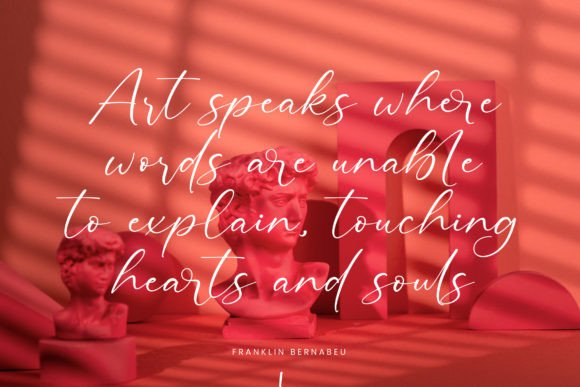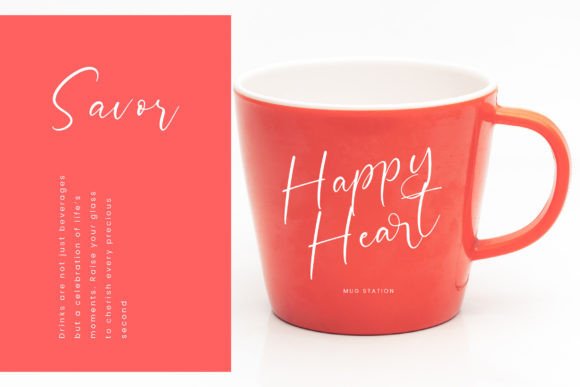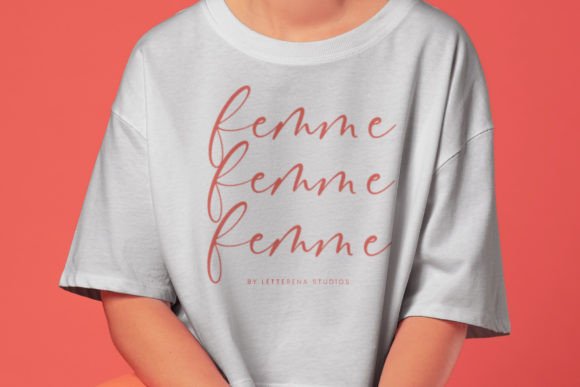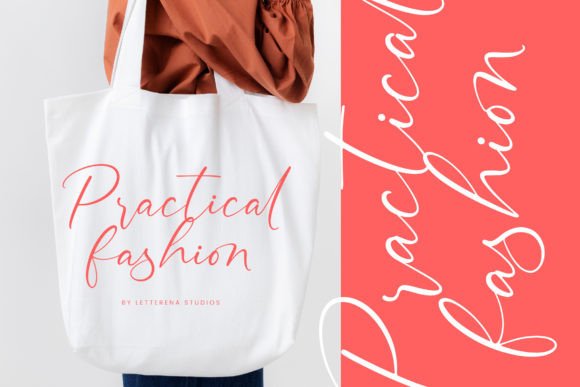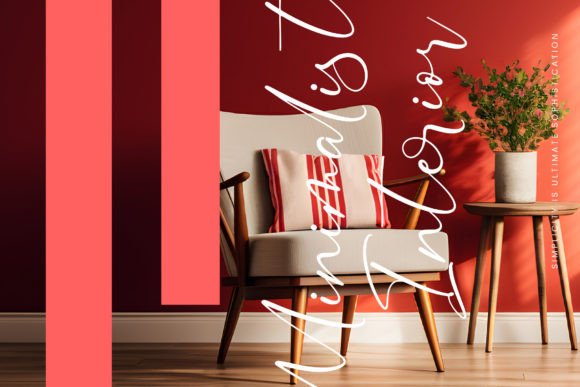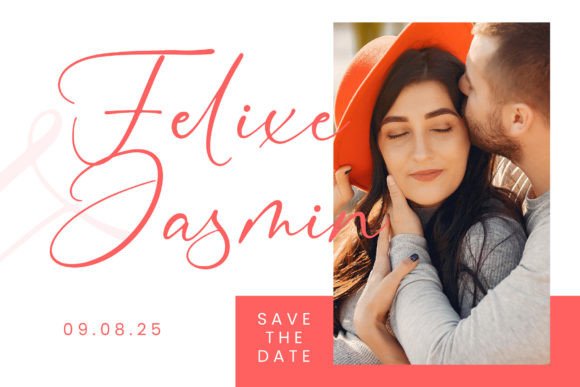
Introducing Harmony Myshine: The Ultimate Luxury Script Font
Are you a designer or crafter looking for a font that exudes luxury and sophistication? Look no further than Harmony Myshine, a stunning handwritten font from Letterena. This beautiful script font is perfect for a wide range of projects, from logos and branding to packaging, posters, and more.
What Makes Harmony Myshine Special?
Harmony Myshine is a luxury script font that boasts a unique and stylish handwritten look. Its elegant strokes and refined lettering make it perfect for projects that require a touch of sophistication. Whether you’re working on a high-end branding project or a creative craft, Harmony Myshine is sure to impress.
Use Harmony Myshine for a Wide Range of Projects
One of the best things about Harmony Myshine is its versatility. This font can be used for a wide range of projects, including:
- Logos and branding projects
- Homeware designs
- Product packaging
- Mugs and water bottles
- Quotes and posters
- Shopping bags and t-shirts
- Book covers and name cards
- Invitation cards and greeting cards
- Labels and photography watermarks
- Special events and more!
Why Choose Harmony Myshine?
So why choose Harmony Myshine over other fonts? Here are just a few reasons:
- Luxury look: Harmony Myshine has a truly luxurious look that’s perfect for high-end projects.
- Versatility: This font can be used for a wide range of projects, from logos to packaging to posters.
- Elegant strokes: Harmony Myshine’s elegant strokes and refined lettering make it perfect for projects that require a touch of sophistication.
Design Tips for Using Harmony Myshine
Here are a few design tips to help you get the most out of Harmony Myshine:
- Pair with a sans-serif font: For a classic look, pair Harmony Myshine with a sans-serif font like Arial or Helvetica.
- Use for headlines and titles: Harmony Myshine is perfect for headlines and titles, where its elegant strokes and refined lettering can really shine.
- Experiment with colors: Don’t be afraid to experiment with different colors and textures to add depth and interest to your design.
In conclusion, Harmony Myshine is a stunning luxury script font that’s perfect for designers and crafters looking to add a touch of sophistication to their projects. With its elegant strokes, refined lettering, and versatility, this font is sure to become a favorite in your collection. So why wait? Download Harmony Myshine today and start creating your own luxurious designs!